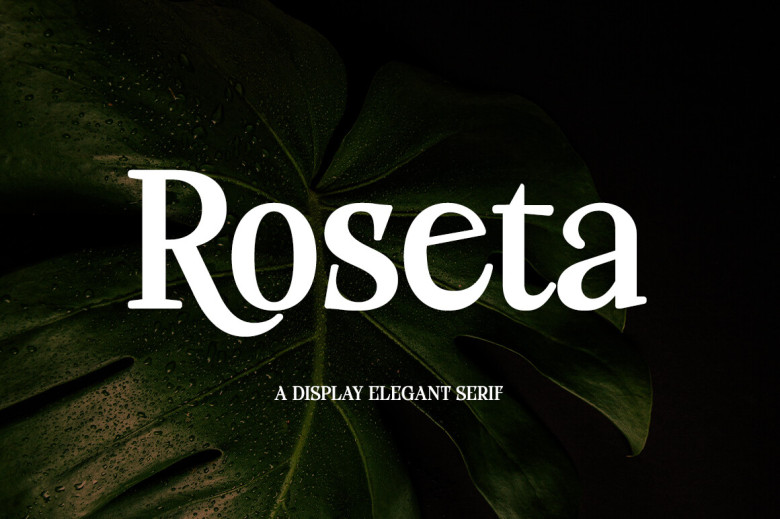
Roseta Font
Roseta Font is an exquisite display serif font designed with a dynamic style and modern serif display in mind, boasting its distinctive thick lines and perfect balance, all designed to bring elegance and diversity.
As shown here, this font can be utilized for branding purposes such as logotypes marriage invitations romance cards packaging alcohol labels name spelling. In this instance I show its use on packaging alcohol labels name spelling. Roseta features both uppercase letters numbers punctuation plus numerous alternative characters offering earlier and later sweeps as options.
Roseta Serif Font